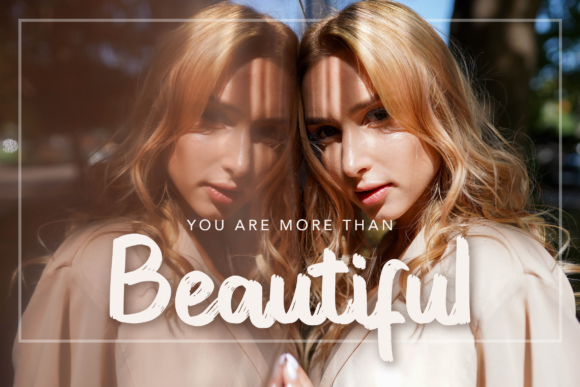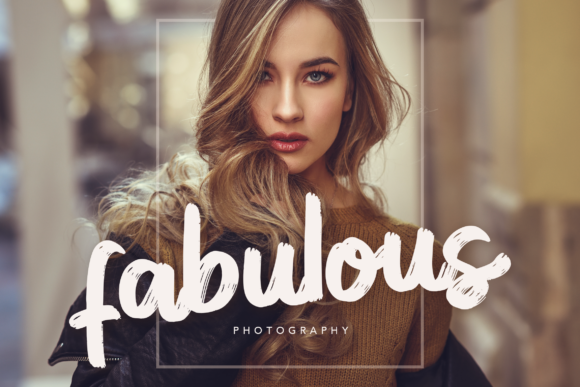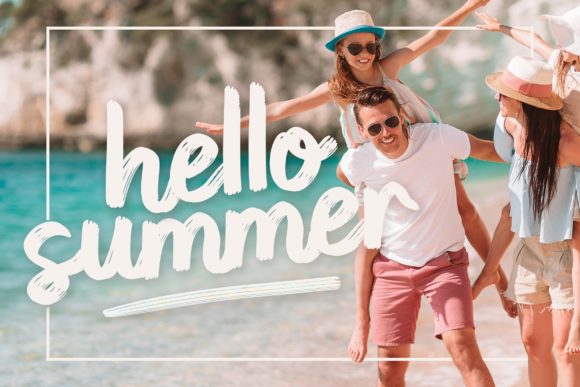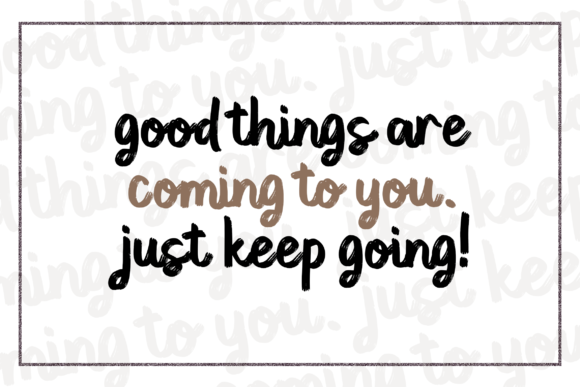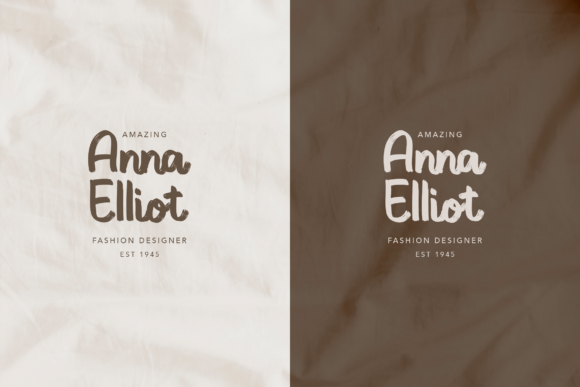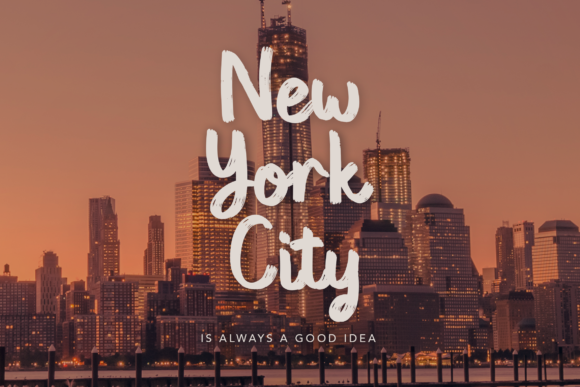
Introducing Granada Font: The Perfect Handwritten Brush Font for Your Creative Projects
Are you a designer or crafter looking for a unique and eye-catching font to elevate your creative projects? Look no further than Granada Font! This handwritten brush font boasts a bold and fun feel that’s sure to capture the attention of your audience. With its versatility and charm, Granada Font is perfectly suited for a wide variety of projects, from branding and advertising to crafting and DIY tutorials.
The Characteristics of Granada Font
Granada Font is a carefully crafted handwritten brush font that exudes a sense of playfulness and sophistication. Its bold and fun feel makes it perfect for projects that require a touch of personality and whimsy. The font features:
- Handwritten brush style: Granada Font is created with a brush, giving it a unique, hand-crafted feel that’s perfect for adding a personal touch to your projects.
- Bold and fun feel: The font’s bold and playful style makes it perfect for headlines, titles, and other applications where you want to make a statement.
Why Choose Granada Font for Your Projects?
There are many reasons why Granada Font stands out from the crowd. Here are just a few:
- Easy to read: Despite its bold and playful style, Granada Font is easy to read, making it perfect for body text and other applications where legibility is important.
- Highly versatile: Whether you’re working on a digital project or a print project, Granada Font can be used in a variety of contexts, from headings and titles to body text and captions.
- Unique and eye-catching: Granada Font’s handmade brush style gives it a unique and eye-catching quality that will help your projects stand out from the crowd.
Using Granada Font in Your Design Projects
Granada Font is perfect for a wide range of design projects, including:
- Branding and advertising: Use Granada Font to create bold and eye-catching headlines, titles, and taglines that will help your brand stand out.
- Digital designs: Granada Font is perfect for digital designs, including social media graphics, blog posts, and website headers.
- Print materials: Use Granada Font to add a touch of personality to your print materials, including business cards, brochures, and flyers.
Tips for Getting the Most Out of Granada Font
Here are a few tips for getting the most out of Granada Font:
- Experiment with different colors: Granada Font looks great in a variety of colors, so don’t be afraid to experiment and find the perfect hue for your project.
- Use it with other fonts: Granada Font pairs well with a variety of other fonts, so try combining it with other fonts to create a unique and eye-catching look.
- Play with different sizes: Granada Font looks great in a range of sizes, from large headlines to smaller body text.
In conclusion, Granada Font is a versatile and eye-catching handwritten brush font that’s perfect for a wide range of creative projects. Its bold and fun feel makes it perfect for adding a touch of personality to your designs, while its ease of use and versatility make it a great choice for designers and crafters of all levels. So why wait? Download Granada Font today and start adding a touch of whimsy and sophistication to your projects!